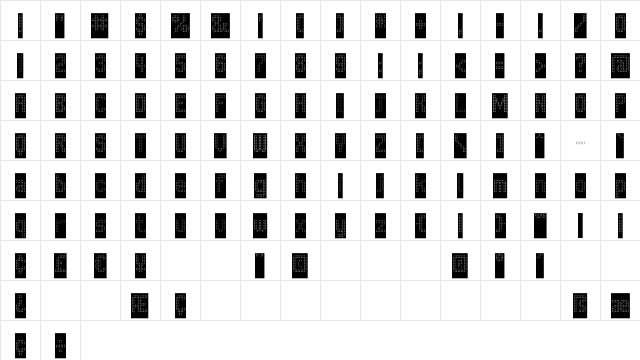
WagesRegular Negative Regular Free Font
WagesRegular Negative Regular
Complete WagesRegular Negative Regular glyph index. Displaying only characters natively supported by WagesRegular Negative Regular font.
Design Context for WagesRegular Negative
WagesRegular Negative is a composed and adaptable typeface that performs quietly and consistently across a wide range of design contexts.